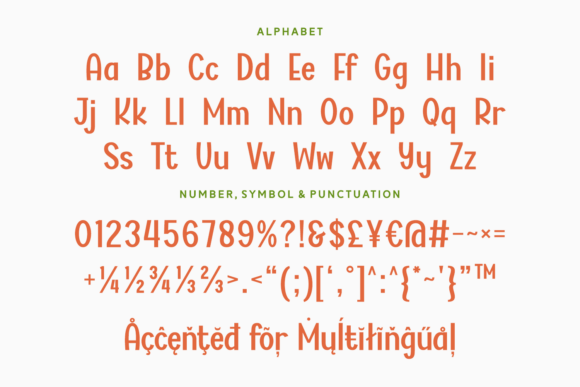
Hello Lemon Font
Hello Lemon is a cute and cheerful sans serif font that exudes a friendly and approachable vibe. Its clean lines give it a soft, inviting appearance, making it highly readable and appealing. The font appears versatile, suitable for a variety of uses where a lighthearted and modern aesthetic is desired.
Hello Lemon font works well for headlines, subheadings, and even longer quotes, suggesting good adaptability across different design elements. It uses for Children’s books, educational materials, branding for playful or lifestyle products, greeting cards, invitations, social media graphics, casual website design and any project aiming for a fresh, optimistic, and charming look.